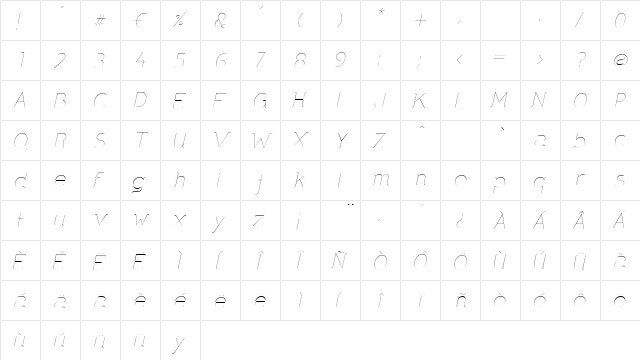
DNNR LightItalic
Design Context for DNNR Typeface
DNNR is a composed and adaptable typeface that performs quietly and consistently across a wide range of design contexts. Its italic angle brings a sense of urgency and motion to the letterforms. The delicate stroke weight brings airiness and refinement to layouts.
Pro Tip: Use DNNR for emphasis, pull quotes, and subheadings where its slanted energy can add rhythm to the layout.